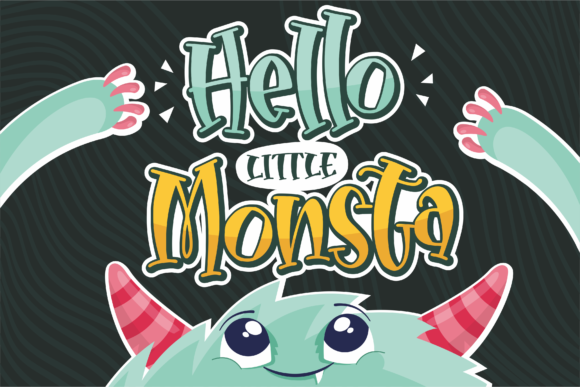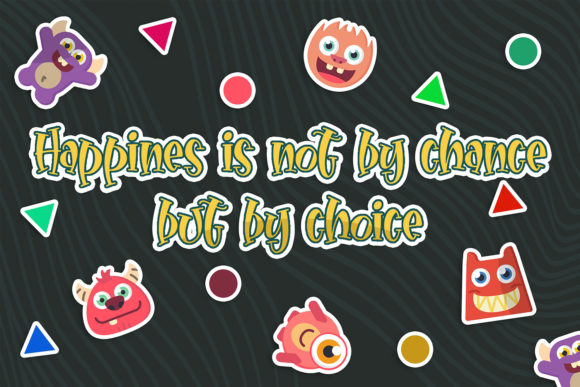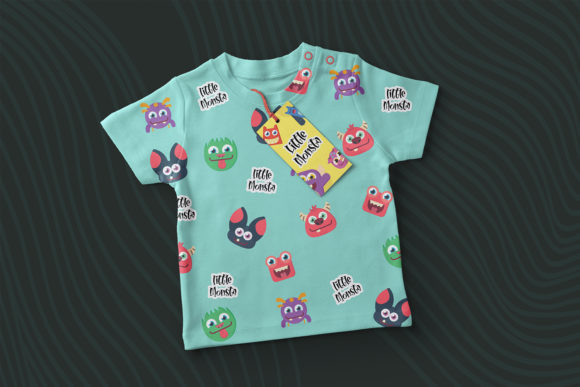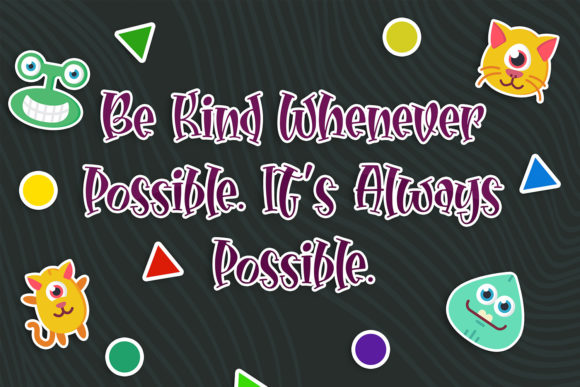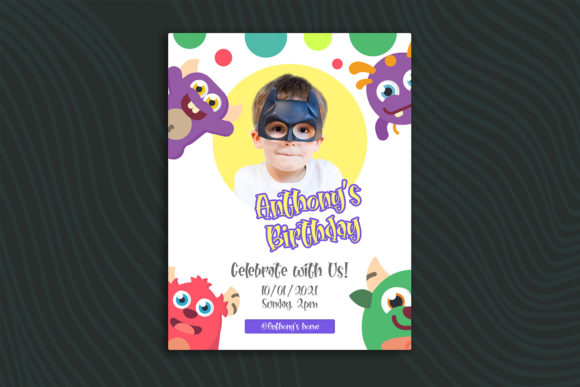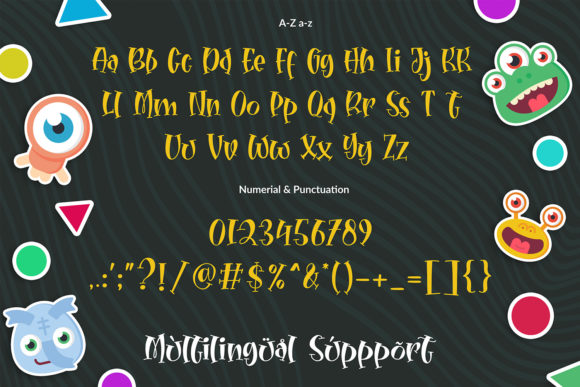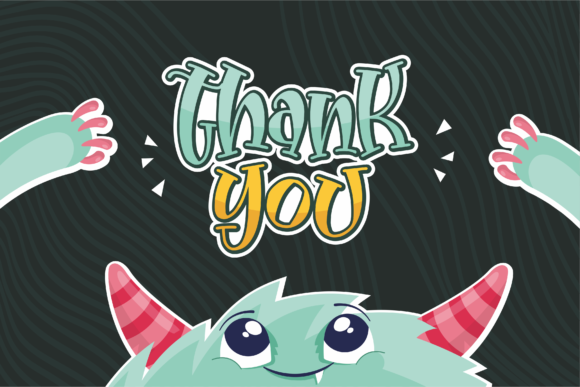
Unleash Your Creativity with Hello Little Monsta Font
Do you remember the excitement of creating your first children’s book or designing a birthday party invitation for a little one? The thrill of bringing a character to life with colors and fonts is a joy that never fades. For designers who love to create whimsical and playful designs, we have a special treat for you – the Hello Little Monsta Font.
This adorable font is specifically designed for kids-themed projects, making it a perfect addition to your design arsenal. With its cute and bubbly characters, Hello Little Monsta Font is sure to bring a smile to the faces of children and adults alike. Whether you’re working on a storybook, designing children’s t-shirts, or creating birthday invitations, this font is sure to be a valuable asset in your design toolkit.
Hello Little Monsta Font Key Features
- Unique Characteristics: Unique, hand-drawn design elements, giving it a playful and whimsical feel.
- Design Style: A mix of modern and vintage elements, making it perfect for creative projects that require a unique touch.
Designer Review: Hello Little Monsta Font
I recently had the chance to work with the Hello Little Monsta Font, and I must say it’s a unique addition to any design project. ✨ The font’s quirky, hand-drawn feel immediately captures attention and adds a touch of personality to text.
Here are some of the key strengths I observed:
- ✨ Customizability: The font comes in a variety of weights and styles, making it easy to match the tone of your project.
- ✨ Versatility: Whether you’re creating a logo, advertisement, or social media graphic, Hello Little Monsta Font adapts well to different contexts.
- ✨ Expressiveness: The font’s irregularities and imperfections give it a human touch, making it perfect for projects that require a more emotional connection with the audience.
- ⚠️ Limited legibility: In certain situations, the font’s irregularities can make it difficult to read, especially at smaller font sizes.
- ⚠️ Overuse: The font’s unique style can quickly become overwhelming if overused, so be sure to balance it with more traditional fonts.
Overall, I think the Hello Little Monsta Font is a great addition to any designer’s toolkit. While it may have its limitations, its customizability, versatility, and expressiveness make it a valuable asset for any creative project.
Tips for Getting the Most Out of Hello Little Monsta Font
Use Hello Little Monsta Font for bold, eye-catching headings and titles.
Combine with other fonts for a unique and creative visual style.
Experiment with different font sizes and colors to add emphasis and hierarchy to your design.
Hello Little Monsta Font is ideal for:
Graphic design and branding projects.
Web design and development projects.
Print design and marketing materials.
Alternatives to Hello Little Monsta Font
Great Vibes is a modern, elegant script font. It is ideal for use in headings, titles, and quotes where a touch of sophistication is required. Great Vibes is more refined and polished compared to Hello Little Monsta Font, which has a more playful and whimsical feel.